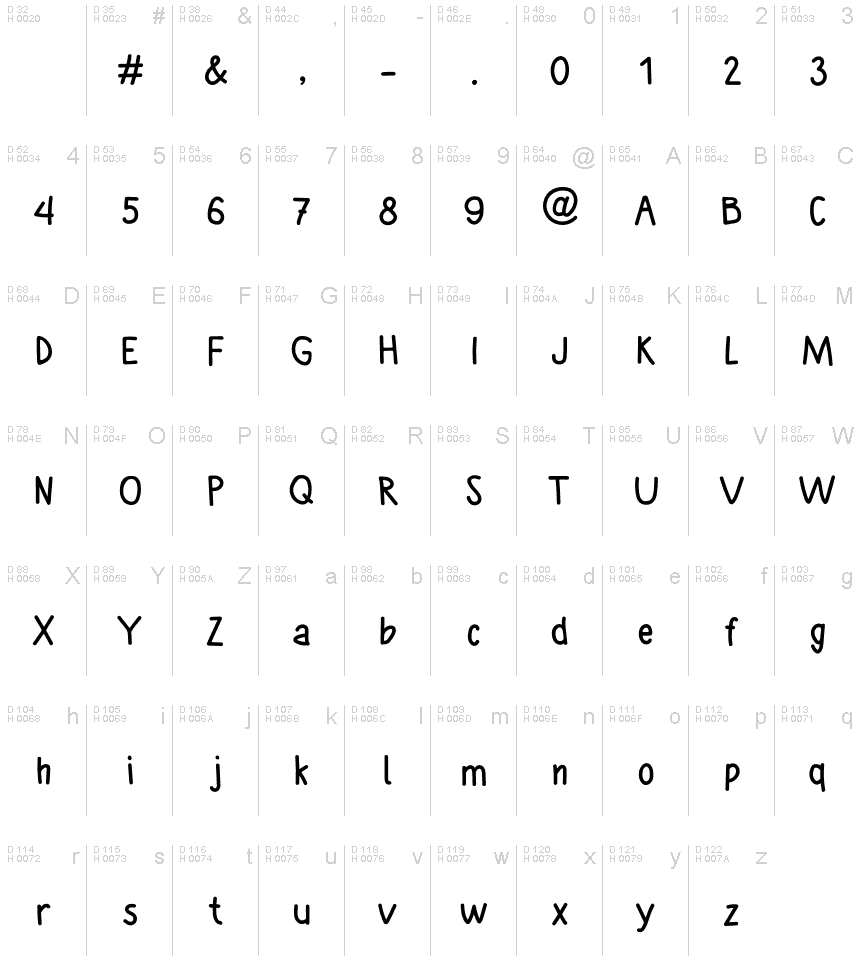
Monday Mood
Monday Mood, a charming creation by font designer Ollie, brings a touch of whimsy to any project.
With its handwritten style, this font adds a personal and authentic feel to invitations, greeting cards, and wedding stationery. Its playful nature also makes it perfect for children's book covers and illustrations. Monday Mood's versatility extends to social media graphics, allowing influencers and bloggers to infuse their posts with an air of creativity.
Whether you're designing logos or crafting personalized gifts, this delightful handwritten font is sure to captivate your audience.